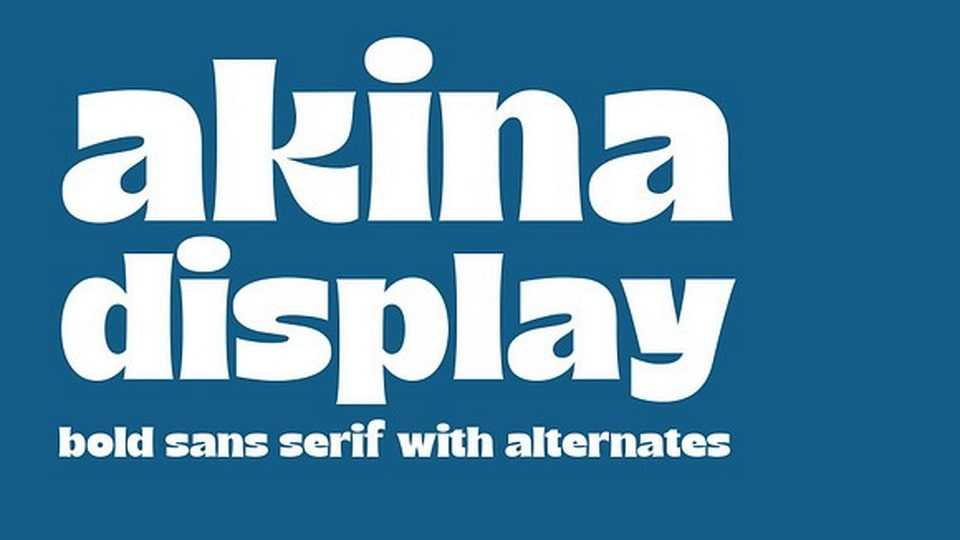
Download Akina font, a bold serif typeface inspired by the charm of vintage-pop art with thick, playful curves and subtle beak endings that create a relaxed yet fun vibe.